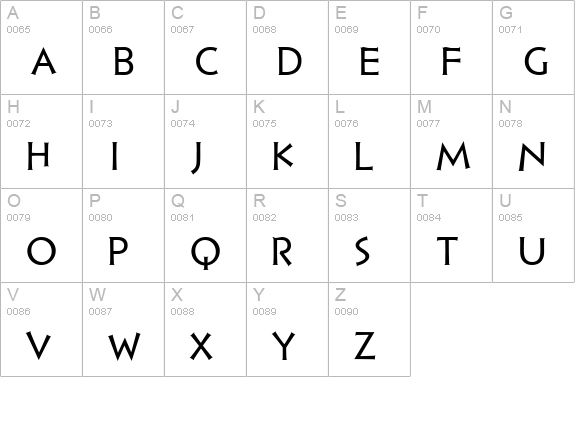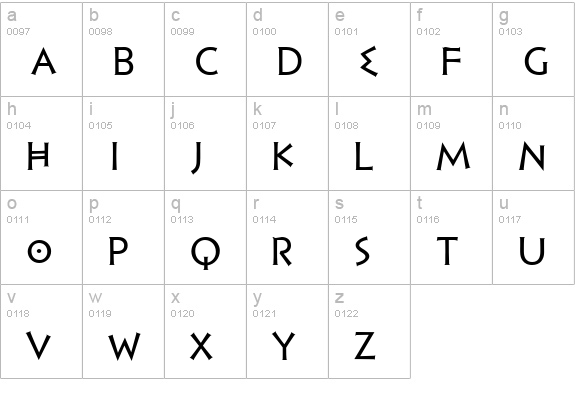
PFHellenicaSerifPro-Regular Font Details
PFHellenicaSerifPro-Regular is the standard, neutral variant in the PFHellenicaSerifPro typeface family \xE2\x80\x94 well suited to general body text, paragraphs, and standard typographic work.
PFHellenicaSerifPro-Regular is a timeless and elegant serif font that exudes sophistication and professionalism. Its classic design features clean lines and balanced proportions, making it a versatile choice for a wide range of design projects. Whether used for body text in printed materials or headlines on a website, this font is sure to make a lasting impression. What sets PFHellenicaSerifPro-Regular apart is its exceptional readability and versatility. The sturdy serifs and well-defined letterforms ensure that text is easy to read, even at smaller sizes. At the same time, the font's refined appearance makes it suitable for more formal applications, such as invitations, resumes, and branding materials. Best of all, PFHellenicaSerifPro-Regular is available for free download at FontsMarket.com. This means that you can easily access this high-quality font and use it in your projects without any cost. Whether you're a professional designer or a hobbyist looking to elevate your creations, PFHellenicaSerifPro-Regular is a valuable addition to your font library. Download it today and start exploring the endless possibilities this font has to offer.